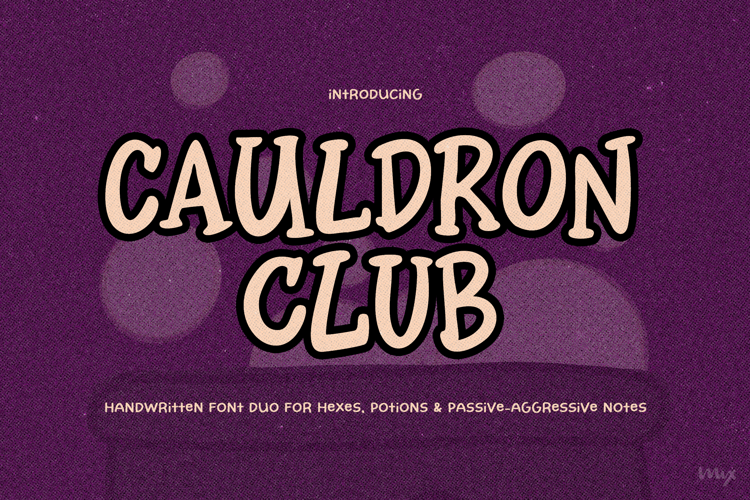
Cauldron Club - A Witchy Font Duo
A charming all-caps serif with a dash of spooky-cute energy and a quirky sans sidekick.
Brewed for the modern witchy designer, Mix Cauldron Club is a playful serif font that mixes vintage potion-label charm with crisp all-caps clarity. It’s the font you’d use to label spell jars and your planner. It walks the line between eerie and elegant—perfect for Halloween invites, witchy quotes, cozy journals, and magical merch.
Need something a little weirder, softer, or sassier? The included quirky sans gives you that handwritten sidekick vibe—great for pairing headlines and subtext without leaving the theme.
• Mix Cauldron Club Serif
• Mix Cauldron Club Sans
Ideal for:
• Witchy small biz branding
• Spellbook-inspired journals
• Seasonal packaging (spooky szn or not)
• Digital downloads, quotes, or labels
• Cute content creators passing the Halloween vibe check
Whether you’re crafting a digital coven kit, designing printable planner pages, or branding your witchy side hustle—Mix Cauldron Club brings all the character without the chaos.